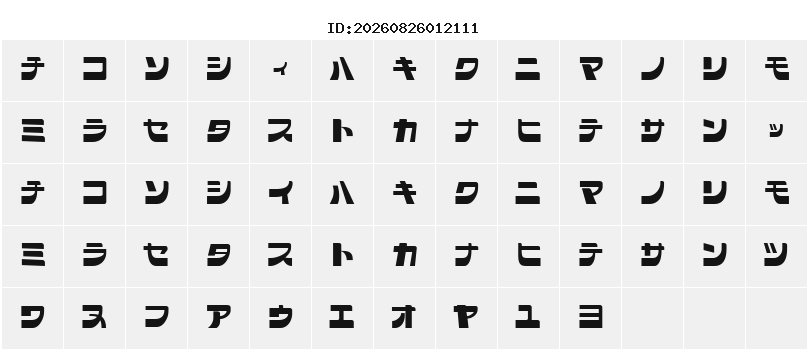
SCRAP Preview
• Font Name: SCRAP
• Font Style: KANA
• Font ID: Macromedia Fon￿ographer 4.1J SCRAP KANA
• Full Font Name: SCRAP KANA
• Version: Macromedia Fon￿ographer 4.1J 99.1.21
• PostScript Name: SCRAPKANA
• Character Count: 86
• Copyright: Designed by red no.06
About SCRAP.ttf
SCRAP.ttf is a modern, elegant sans-serif font designed for ultimate readability and visual harmony. Perfect for branding, headlines, web design, and print materials.